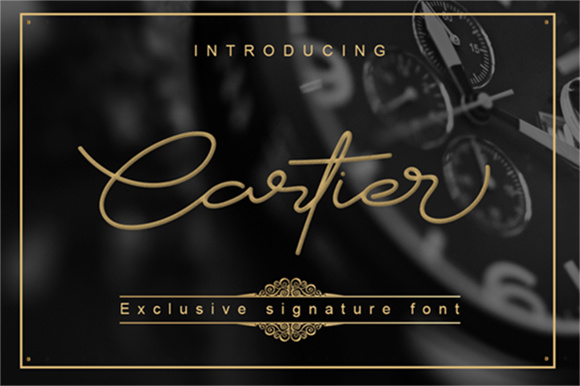
Step into the world of Cartier Font, a breathtaking script font that captures the essence of modern hand lettering. Its organic flow and elegant strokes will transform your creative projects into masterpieces. Whether you're a designer, artist, or simply a lover of typography, Cartier Font is the perfect choice to add a touch of sophistication and charm to your work.
With Cartier Font, you'll have the power to create captivating logos, eye-catching social media posts, stunning invitations, and so much more. Its versatility knows no bounds, allowing you to explore a wide range of styles and designs. From graceful wedding invitations to playful birthday cards, Cartier Font will elevate your projects to new heights.
Unleash your creativity and embrace the beauty of hand-drawn typography with Cartier Font. Its intuitive design makes it easy to use, even for beginners. Whether you're working on digital or print projects, Cartier Font will bring your vision to life with stunning results.